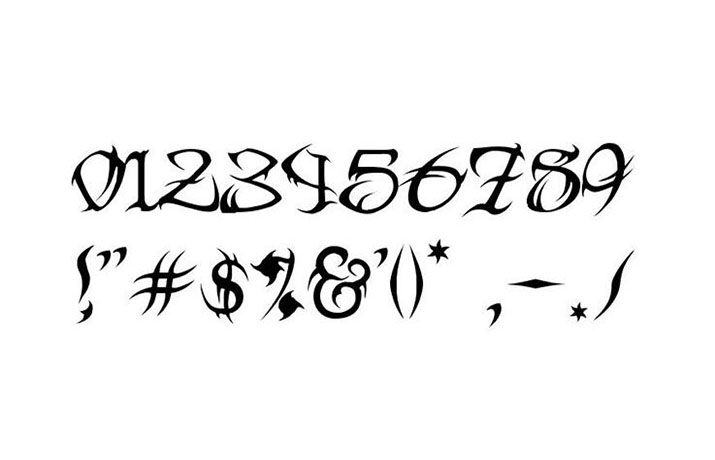
Tribal Font is a gothic display typeface that has pointed edges and geometric patterns. It was designed and published by Vigilante Typeface Corporation.
All textures a reminiscent of animal teeth, and claws’ appearance in the designer uses improper baselines. That’s why texture didn’t follow straight lines and each letter has its unique texture.
Its Sharpe angles, flowing curves, and rounded shapes make it a great choice for unique designs such as posters, headers, titles, tattoos, stickers, horror movie posters, flyers, and more.
- A wide range of typefaces known as “display fonts” are made for short-form and frequently large-format uses, including book covers, billboards, posters, logotypes, headlines, game titles, movie posters, novels, and company logos.
- Also use it for product designs, special event cards, social media banners, decorative elements, signs, flyers, brochures, signs, banners, advertisements, ads, headers, custom tattoos, and more.